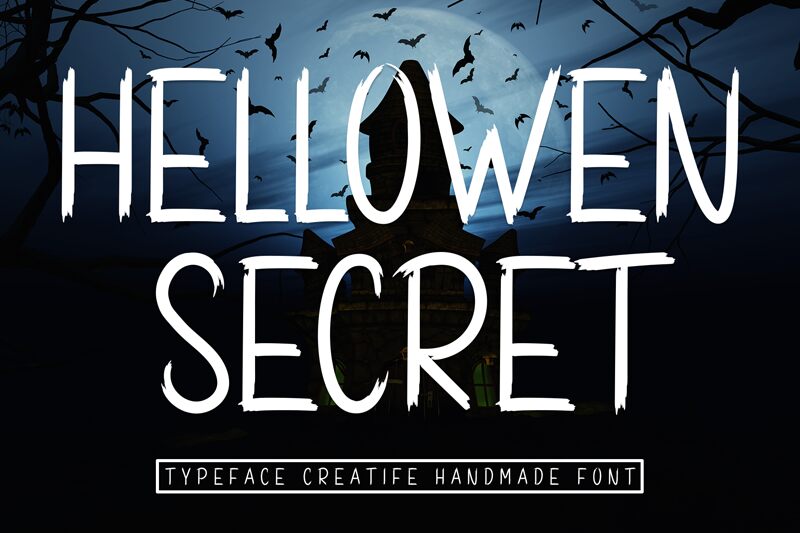
Hellowen Secret
Hellowen Secret font by Andi Moz is a condensed and scary display font. With a jagged, distressed design, it creates an eerie and unsettling vibe that’s perfect for building a spooky atmosphere. The elongated shapes and creepy overall appearance establish this typeface as an excellent choice whenever fear is needed.
Add the free Hellowen Secret font to horror-themed posters or make movie titles extra ominous. Use it for book covers, t-shirts, social media posts, merchandise designs, party invitations, banners, website designs, headers, icons etc. Its condensed shape is especially useful in projects with limited horizontal space for placing text.